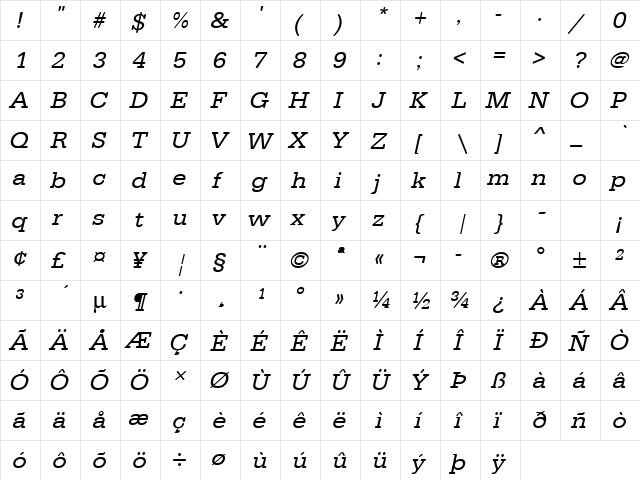
URWTypewriterTWid Oblique
Design Context for URWTypewriterTWid Typeface
URWTypewriterTWid brings the precise, column-aligned rhythm of monospaced typography to designs that value technical clarity and systematic order. The slanted form adds forward momentum and visual energy.
Pro Tip: Use URWTypewriterTWid with slightly increased line-height for extended reading — fixed-width spacing can feel dense in longer passages without extra breathing room.